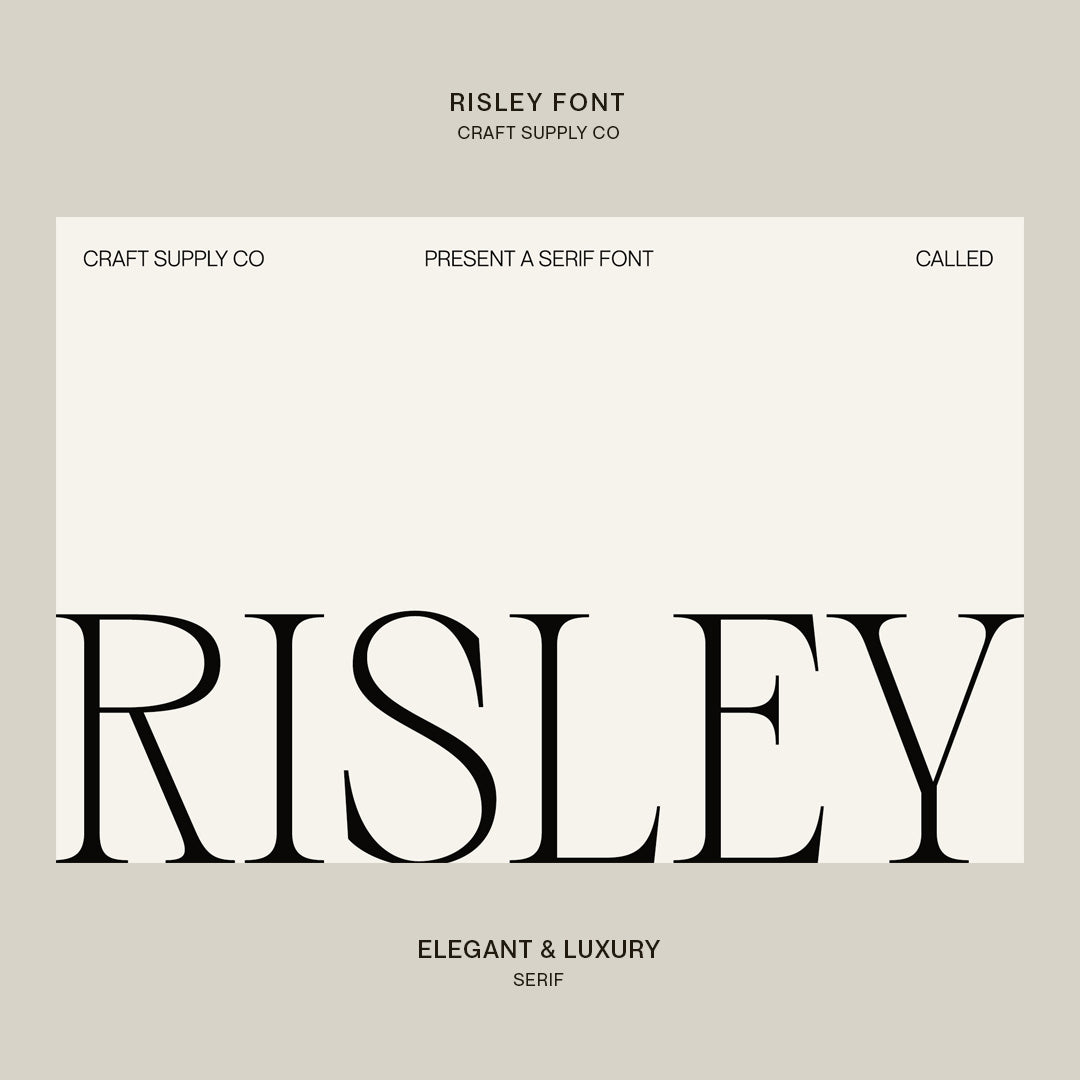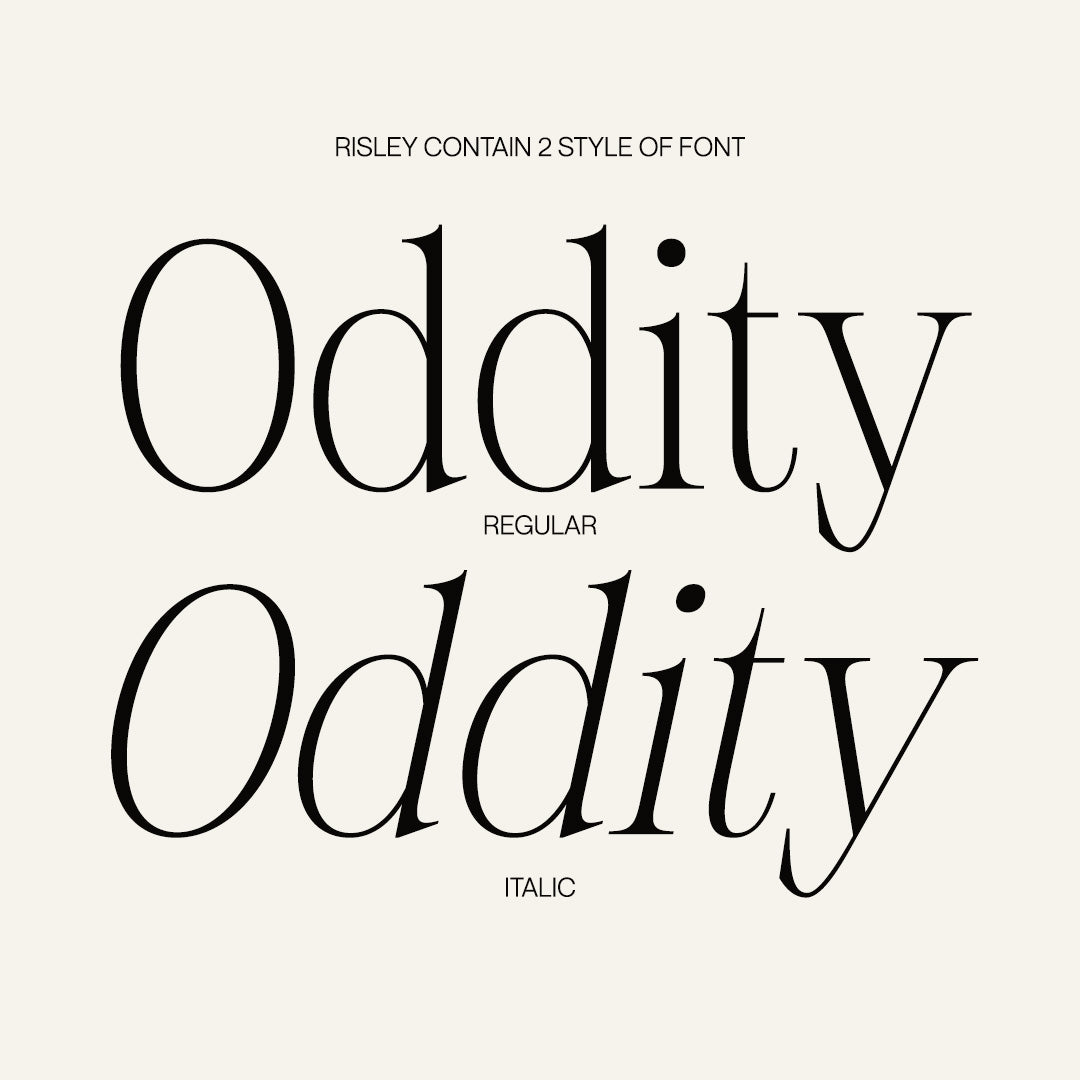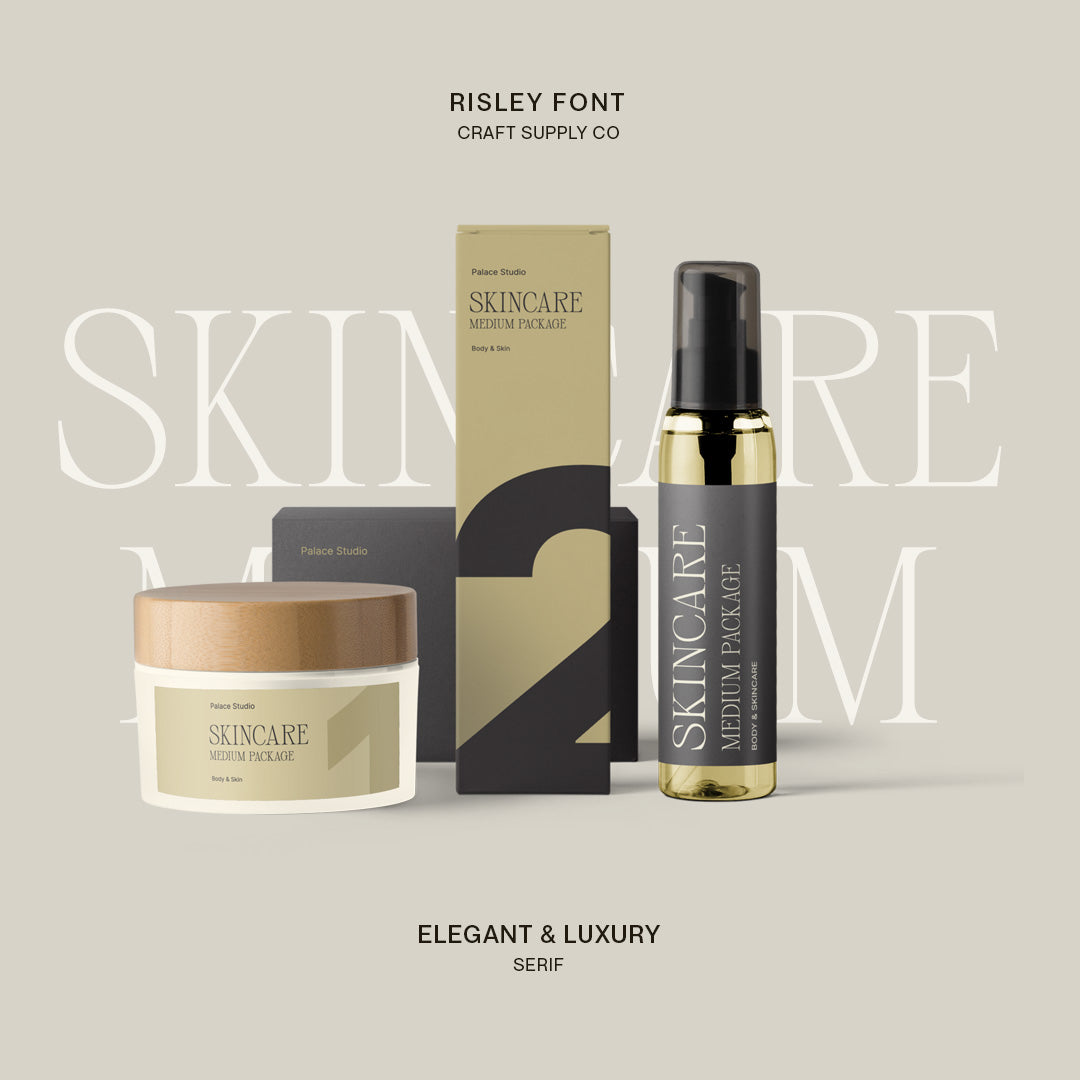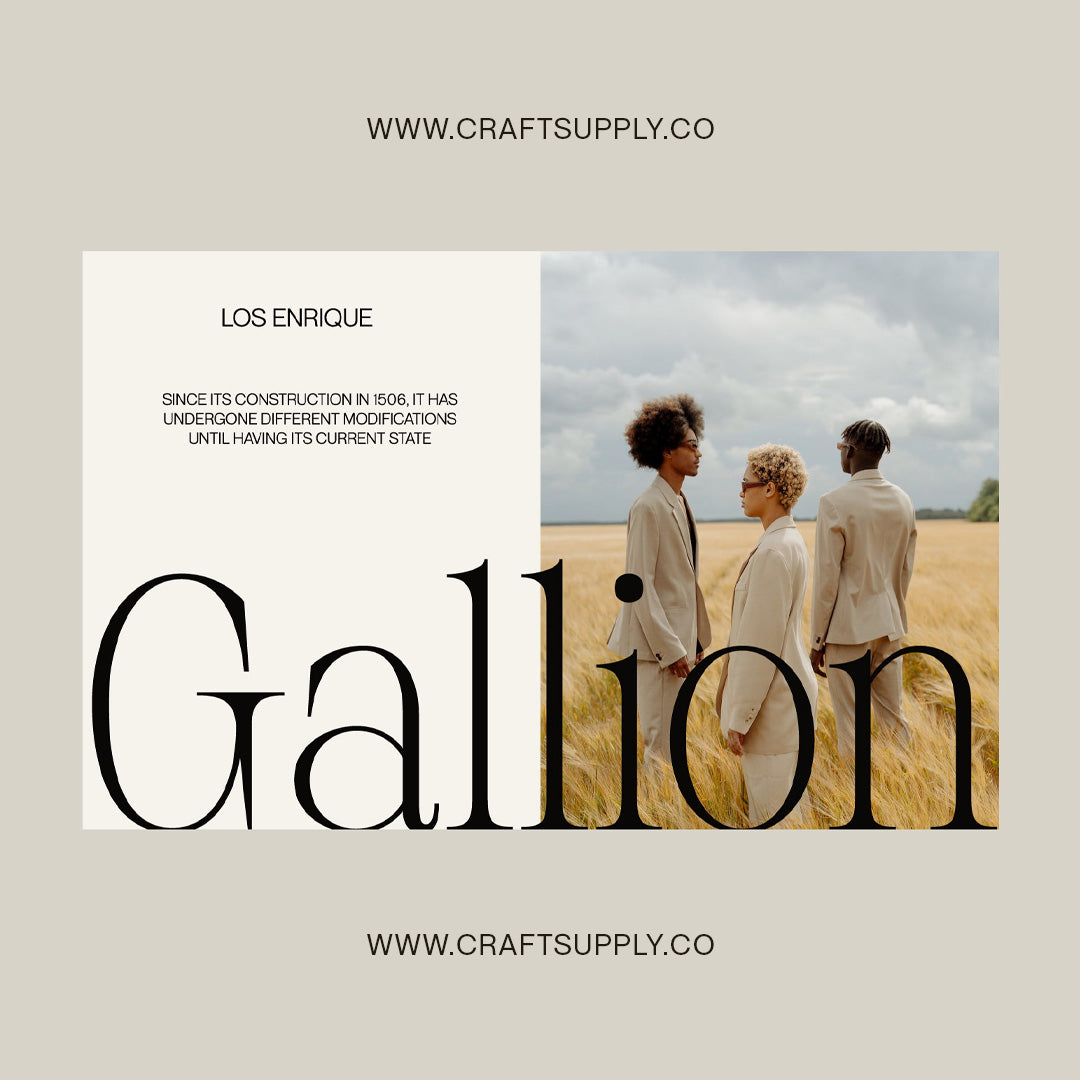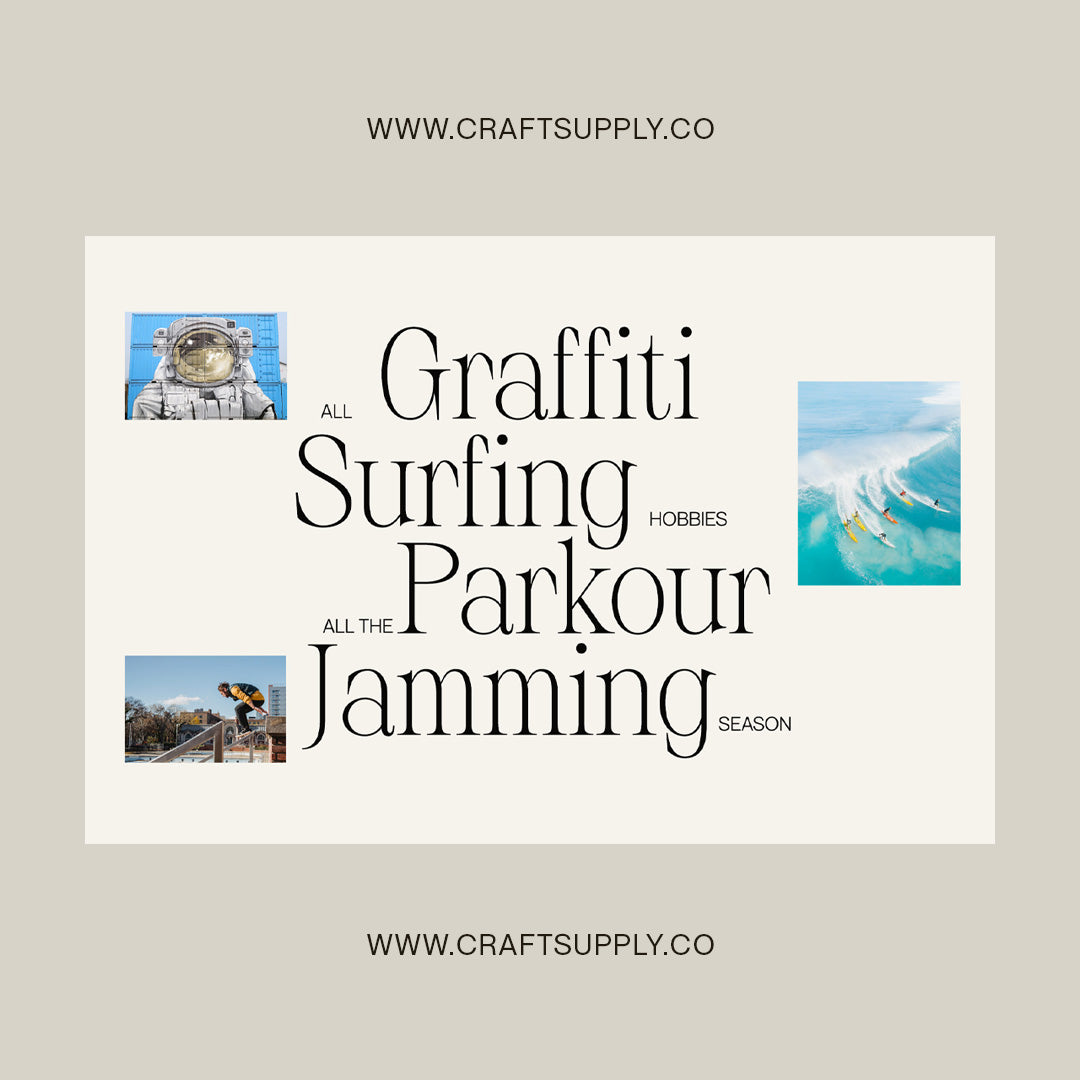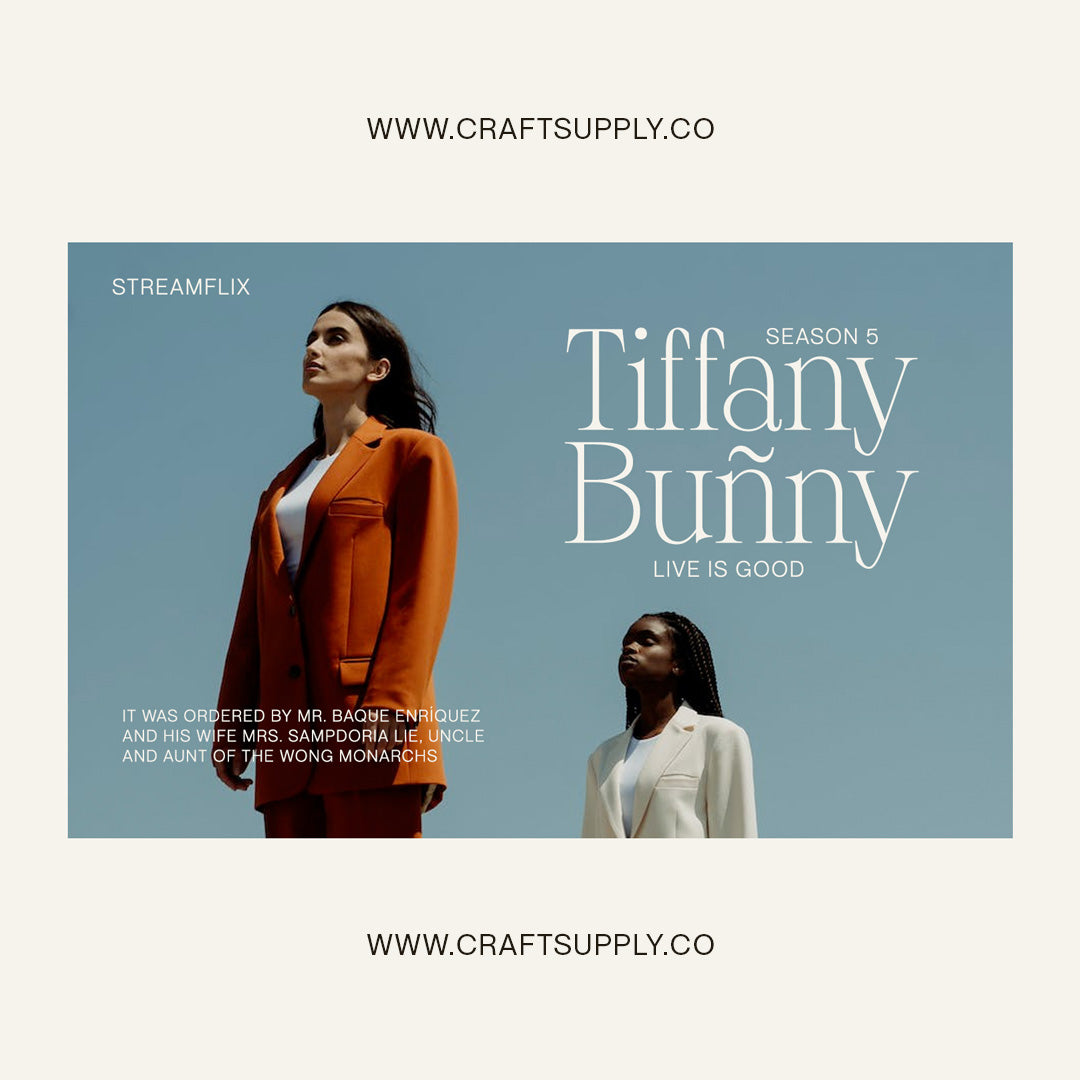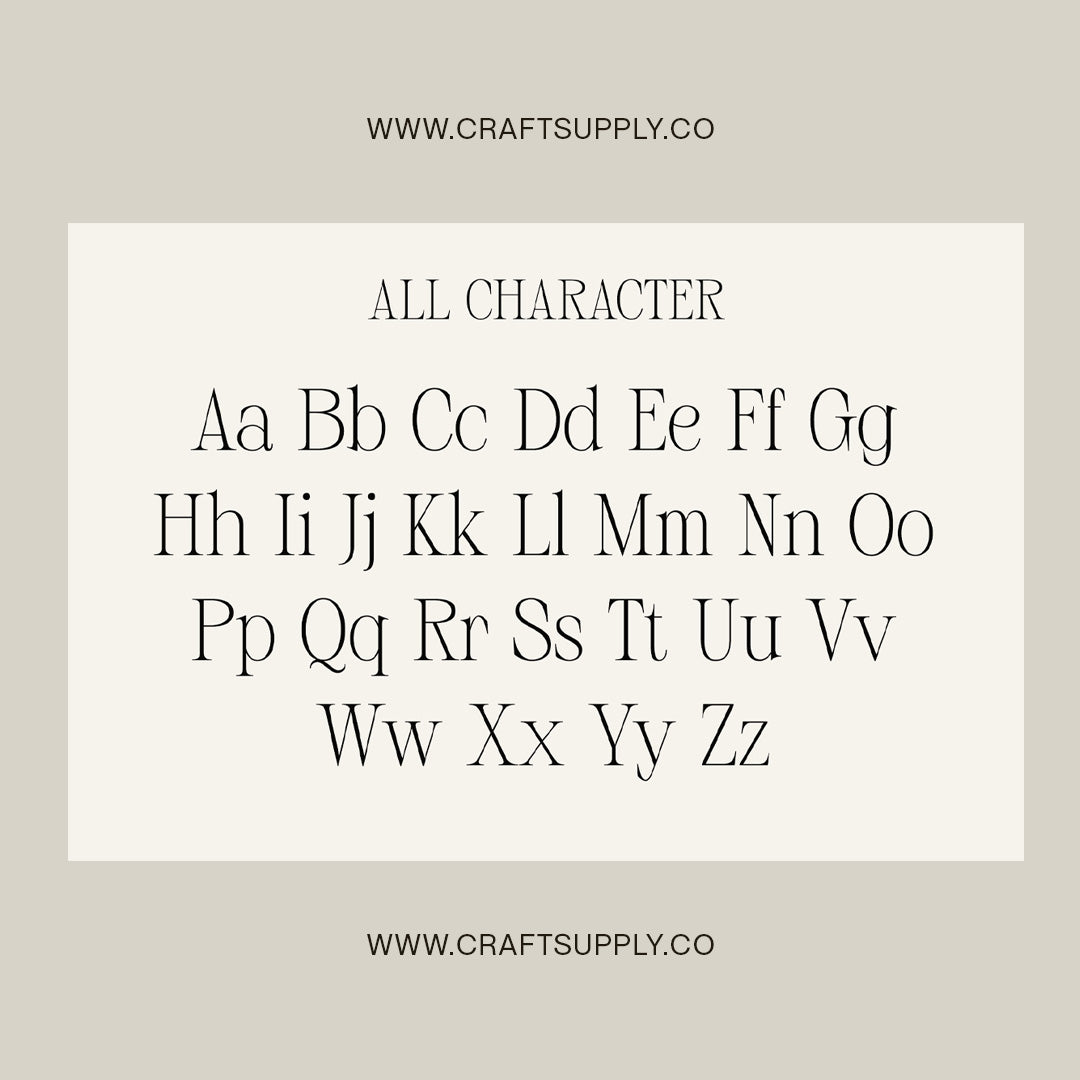
Risley – Classic Editorial Font
Risley: A timeless classic in editorial typography, Risley embodies the essence of a bygone era with its retro 90s serif font. Perfectly suited for editorial projects, Risley infuses a touch of nostalgia and sophistication into your designs.
This typeface is ideal for greeting card, packaging, brand identity, poster, or any purpose to make your design project look eye catching and trendy. Feel free to play with this typeface!
1. Risley Regular
2. Risley Italic
1. Uppercase & Lowercase
Risley is a classic editorial font featuring a retro 90s serif design, available in Regular and Italic styles. It includes uppercase and lowercase letters, numerals, punctuation, multilingual accents, and is PUA encoded for easy access to special characters.